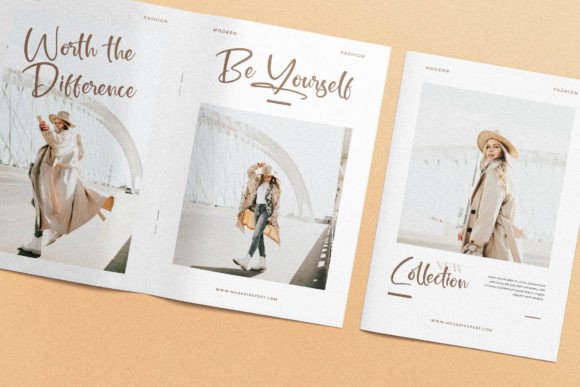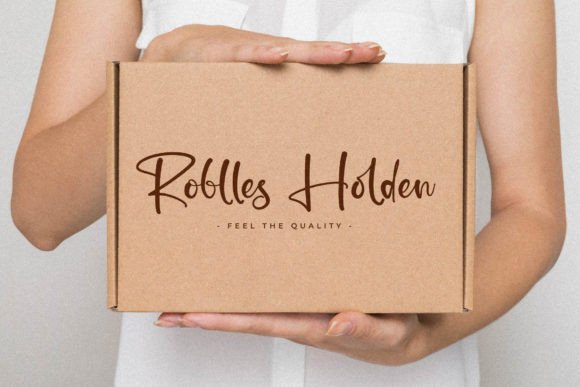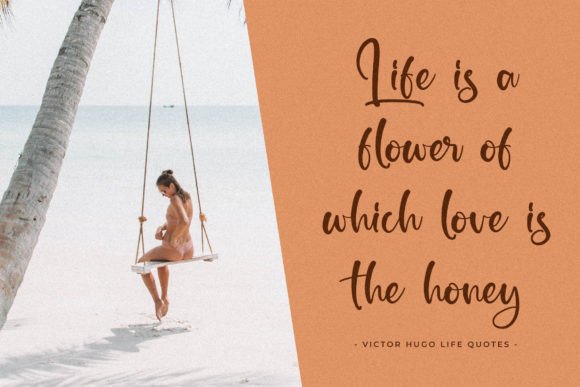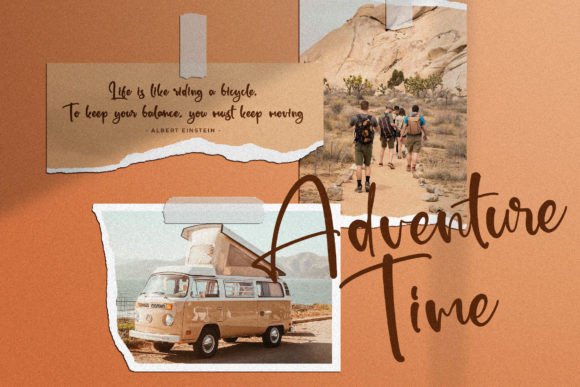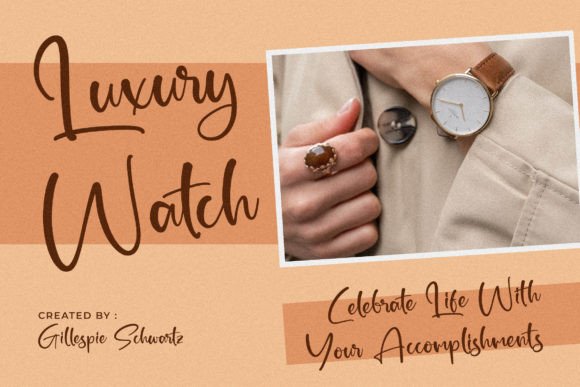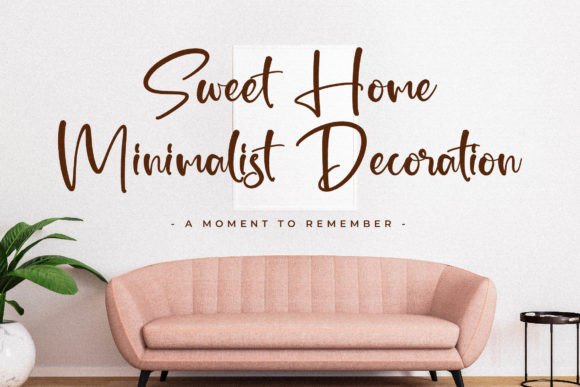
Introducing Grand Panttura: The Romantic Calligraphy Font for Luxurious Designs
Are you looking for a font that adds a touch of elegance and sophistication to your design projects? Look no further than Grand Panttura, a romantic and sweet calligraphy typeface that is sure to make your designs shine. With its unique characters that dance along the baseline, Grand Panttura is the perfect choice for designers and crafters who want to add a luxury spark to their work.
What is Grand Panttura?
Grand Panttura is a beautifully crafted calligraphy font that features intricate and flowing characters that seem to dance along the baseline. The font is designed to evoke a sense of romance and sweetness, making it perfect for designs that require a touch of elegance and sophistication. Whether you’re working on a wedding invitation, a branding project, or a packaging design, Grand Panttura is sure to add a luxurious feel to your work.
Key Features of Grand Panttura
- Romantic and Sweet: Grand Panttura features characters that are designed to evoke a sense of romance and sweetness. The font’s flowing lines and intricate details make it perfect for designs that require a touch of elegance.
- Dancing Characters: One of the unique features of Grand Panttura is its characters that dance along the baseline. This creates a sense of movement and energy, making the font perfect for designs that require a touch of whimsy.
- Luxurious Feel: Grand Panttura is designed to add a luxurious feel to any design project. The font’s intricate details and flowing lines make it perfect for high-end designs that require a touch of sophistication.
- Versatile: Grand Panttura is a versatile font that can be used for a wide range of design projects. Whether you’re working on a wedding invitation, a branding project, or a packaging design, the font is sure to add a touch of elegance and sophistication.
Why Choose Grand Panttura?
There are many calligraphy fonts available, but Grand Panttura stands out from the rest. Here are just a few reasons why you should choose Grand Panttura for your next design project:
- Unique Design: Grand Panttura features a unique design that is sure to make your designs stand out. The font’s dancing characters and intricate details make it perfect for designs that require a touch of elegance and sophistication.
- Elegant and Sophisticated: Grand Panttura is designed to evoke a sense of elegance and sophistication. The font’s flowing lines and intricate details make it perfect for high-end designs that require a touch of luxury.
- High-Quality: Grand Panttura is a high-quality font that is designed to produce crisp and clear results. Whether you’re working on a print or digital project, the font is sure to deliver.
Grand Panttura is a romantic and sweet calligraphy typeface that is sure to add a luxury spark to any design project. With its unique characters that dance along the baseline, the font is perfect for designers and crafters who want to create high-end designs that require a touch of elegance and sophistication. Whether you’re working on a wedding invitation, a branding project, or a packaging design, Grand Panttura is the perfect choice. So why wait? Download Grand Panttura today and start creating luxurious designs that will leave a lasting impression.